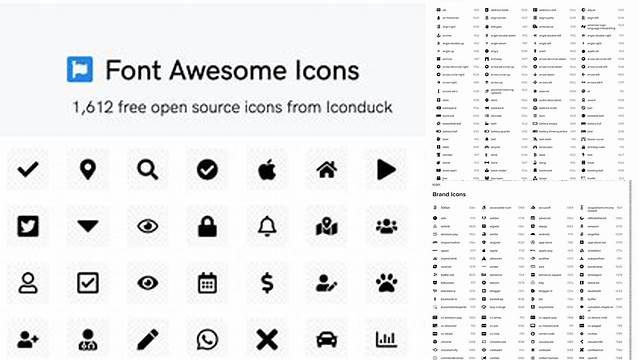
What is Font Awesome?
Font Awesome is essentially a massive library of scalable vector icons that you can customize – size, color, drop shadow, anything is possible with the help of CSS. What makes it so beloved by developers and designers alike? Well, for starters, it's incredibly easy to use. Instead of dealing with images, you're working with font characters, which means no more blurry icons when you zoom in! Plus, it’s completely free for many common use cases, making it an ideal choice for projects of all sizes. Font Awesome offers both a Free and a Pro version. The Free version includes a vast collection of icons that cater to a wide range of needs, from basic UI elements to social media logos. The Pro version unlocks thousands of additional icons and advanced features for those requiring more specialized options. With Font Awesome, you're not just adding icons; you're enhancing the user experience, improving visual appeal, and streamlining the development process. Whether you are building a simple blog or a complex web application, Font Awesome has something to offer, making it an indispensable tool in your web development arsenal. Getting started with Font Awesome is straightforward, and the benefits it brings in terms of scalability, customization, and ease of use are undeniable. This introduction barely scratches the surface, but hopefully, it gives you a solid foundation to understand what makes Font Awesome a favorite among web developers and designers worldwide.
Why Use Font Awesome Free Icons?
So, why should you even bother with Font Awesome Free Icons? Let's break it down. First off, the sheer variety is staggering. You've got icons for just about everything – from basic controls like play and pause, to social media logos, to more specialized symbols for various industries. No matter what your project is, you're likely to find something that fits perfectly. Secondly, these icons are vector-based, which means they look crisp and clean at any size. Forget about pixelated messes! Whether you're viewing your site on a tiny smartphone screen or a massive desktop monitor, your icons will always look their best. Customization is another huge win. With CSS, you can easily change the size, color, and even add effects like shadows and rotations to your icons. This level of control allows you to seamlessly integrate the icons into your existing design. Using Font Awesome Free Icons can significantly improve your website’s performance. Because they are font characters, they load faster than images, leading to a smoother and more responsive user experience. Plus, they’re incredibly easy to implement; just a few lines of code, and you’re good to go! Font Awesome is also constantly updated with new icons and features, so you can be sure you're using a modern and well-supported library. All of these advantages make Font Awesome Free Icons an invaluable asset for web developers and designers looking to create visually appealing, user-friendly, and high-performance websites. Why settle for less when you can have a vast library of scalable, customizable, and easy-to-use icons at your fingertips? It’s a no-brainer!
Font Awesome Free Icons Cheatsheet
Alright, let's dive into the heart of the matter: the cheatsheet! This is where you'll find a quick reference to some of the most popular and useful Font Awesome Free icons. Remember, the Free version has a subset of all the icons available in the Pro version, but there's still plenty to work with! Here’s a curated list to get you started:
- User Icon:
<i class="fas fa-user"></i>- Perfect for user profiles, account management, and anything related to users. - Lock Icon:
<i class="fas fa-lock"></i>- Ideal for security-related features, login forms, and privacy settings. - Envelope Icon:
<i class="fas fa-envelope"></i>- Use it for contact forms, email notifications, and messaging features. - Cog Icon:
<i class="fas fa-cog"></i>- Great for settings pages, configuration options, and control panels. - Home Icon:
<i class="fas fa-home"></i>- Essential for navigation menus, homepages, and quick access to the main site. - Search Icon:
<i class="fas fa-search"></i>- A must-have for search bars, filter options, and content discovery. - Trash Icon:
<i class="fas fa-trash"></i>- Use it for delete functions, removing items, and clearing data. - Pencil Icon:
<i class="fas fa-pencil-alt"></i>- Perfect for edit buttons, writing new content, and updating information. - Plus Icon:
<i class="fas fa-plus"></i>- Ideal for adding new items, creating entries, and expanding sections. - Minus Icon:
<i class="fas fa-minus"></i>- Use it for collapsing sections, removing items, and reducing values.
This is just a small sampling of the icons available in the Font Awesome Free library. To find more icons, head over to the Font Awesome website and browse their extensive collection. Use the search bar to find icons related to your specific needs. Remember to always check the documentation to see which styles (Solid, Regular, Light, etc.) are available for each icon. Keep this cheatsheet handy, and you'll be able to quickly add icons to your projects, enhancing the visual appeal and user experience of your website or application. Happy coding!
Customizing Font Awesome Icons
Now, let's talk about making those icons your own. Customizing Font Awesome icons is where the real fun begins! With CSS, you have a ton of control over how your icons look. Let's start with the basics: size and color. To change the size of an icon, you can simply use the font-size property in CSS. For example, if you want to make an icon twice as big, you would use font-size: 2em;. You can also use pixels, percentages, or any other CSS unit to adjust the size to your liking. Changing the color is just as easy. Use the color property to set the icon's color to any valid CSS color value, such as a hex code, color name, or RGB value. For example, to make an icon blue, you would use color: blue; or color: #007bff;. But that's just the beginning! You can also add shadows, rotations, and animations to your icons to make them even more visually appealing. Use the text-shadow property to add a shadow effect, the transform: rotate() property to rotate the icon, and CSS animations to create dynamic effects. For example, to add a subtle shadow to an icon, you might use text-shadow: 2px 2px 4px rgba(0, 0, 0, 0.5);. You can even use Font Awesome's built-in classes to quickly apply common transformations. For example, the fa-spin class will make an icon rotate continuously, perfect for loading indicators or animated effects. To use this class, simply add it to the <i> tag like this: <i class="fas fa-spinner fa-spin"></i>. Customizing Font Awesome icons allows you to seamlessly integrate them into your website's design and create a unique and engaging user experience. Experiment with different CSS properties and Font Awesome classes to discover the endless possibilities for transforming these simple icons into eye-catching visual elements.
Best Practices for Using Font Awesome
To ensure you're getting the most out of Font Awesome, here are some best practices to keep in mind. First and foremost, always use the latest version of Font Awesome. New versions often include bug fixes, performance improvements, and new icons, so staying up-to-date is crucial. Check the Font Awesome website regularly for updates and follow their instructions for upgrading your project. Secondly, be mindful of the file size. While Font Awesome is generally lightweight, including too many styles or unnecessary files can slow down your website. If you're only using a few icons, consider using Font Awesome's subsetting feature to include only the icons you need. This can significantly reduce the file size and improve your website's loading speed. Another important best practice is to use semantic HTML when implementing icons. Use the <i> tag for icons and provide meaningful alternative text using the aria-label attribute. This improves accessibility and ensures that screen readers can properly convey the meaning of the icons to users with disabilities. For example, instead of just using <i class="fas fa-home"></i>, use <i class="fas fa-home" aria-label="Home"></i>. When customizing icons with CSS, try to use classes instead of inline styles. This makes your code more organized and maintainable. Define your icon styles in a separate CSS file and apply them to the icons using classes. This also makes it easier to reuse styles across your website. Finally, test your icons on different devices and browsers to ensure they look good and function correctly. Different browsers may render icons slightly differently, so it's important to verify that they are displayed as intended. By following these best practices, you can ensure that you're using Font Awesome effectively and creating a high-quality user experience for your website visitors. Keep these tips in mind as you work with Font Awesome, and you'll be well on your way to creating visually appealing and accessible websites.
So there you have it, folks! A comprehensive guide to using Font Awesome Free Icons. From understanding what Font Awesome is, to implementing it in your projects, customizing the icons, and troubleshooting common issues, you're now well-equipped to take your web design skills to the next level. Remember, Font Awesome is a powerful tool that can significantly enhance the visual appeal and user experience of your website or application. By following the best practices and using the cheatsheet as a quick reference, you can create stunning designs that are both functional and aesthetically pleasing. So go ahead, experiment with different icons, customize them to your liking, and unleash your creativity. The possibilities are endless! With Font Awesome, you can transform your website from ordinary to extraordinary and create a lasting impression on your visitors. Happy designing!